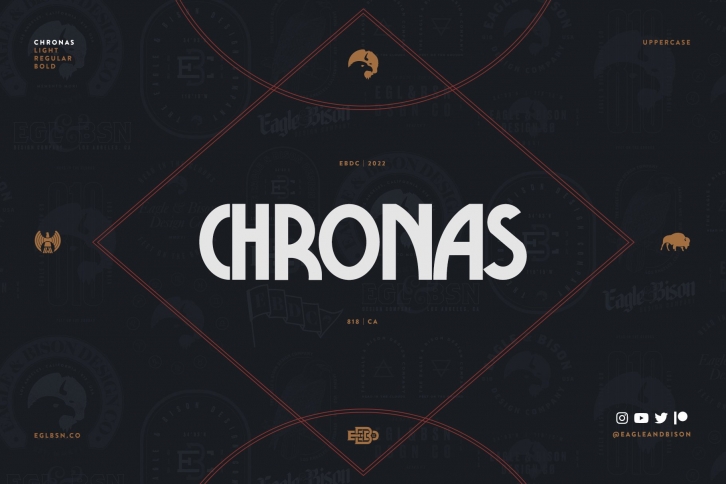
Chronas is a 3-weight font that was a result of learning a new technique in Adobe Illustrator that allows the ability to align a stroke to the left or right of an open path.
Basically I created only one series of paths for each character once and was able to render out multiple weights by just increasing or decreasing the stroke size.